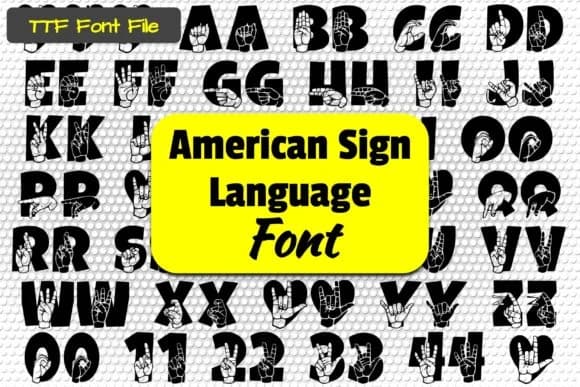
1 / 8About Able Lingo ASL 5 Font
This cheerful font makes American Sign Language visible in a whole new way. Able Lingo ASL 5, designed by Able Lingo, transforms the ASL alphabet into a dingbat typeface that opens up fresh design possibilities for anyone working on inclusive projects. Use it for accessible classroom signage that teaches ASL to children, educational materials and learning flashcards where hand signs become the teaching tool, community spaces that prioritize visual communication over sound, and inclusive invitation suites celebrating deaf culture alongside hearing families. Craft project labels work beautifully with this font too, along with early childhood learning posters and any design where you want to embed sign language directly into your layouts.
The typeface gives you the complete ASL alphabet plus numbers, letting you build compositions where signs function as both visual elements and genuine communication. Its playful, comic-style character means the letterforms shine best as focal points rather than body text. When you need readable copy running alongside, a clean geometric sans-serif keeps everything grounded while your signs take center stage. The pairing lets you communicate on two levels at once. Find Able Lingo ASL 5 on Creative Fabrica, ready for designers building with real accessibility in mind.
Able Lingo ASL 5 Font
by Able Lingo